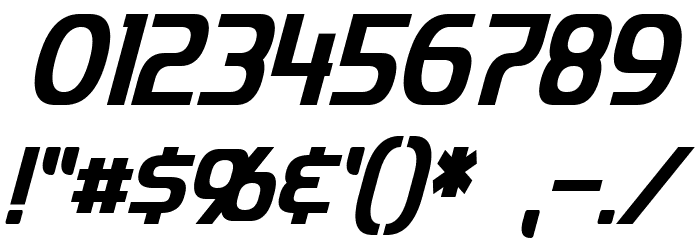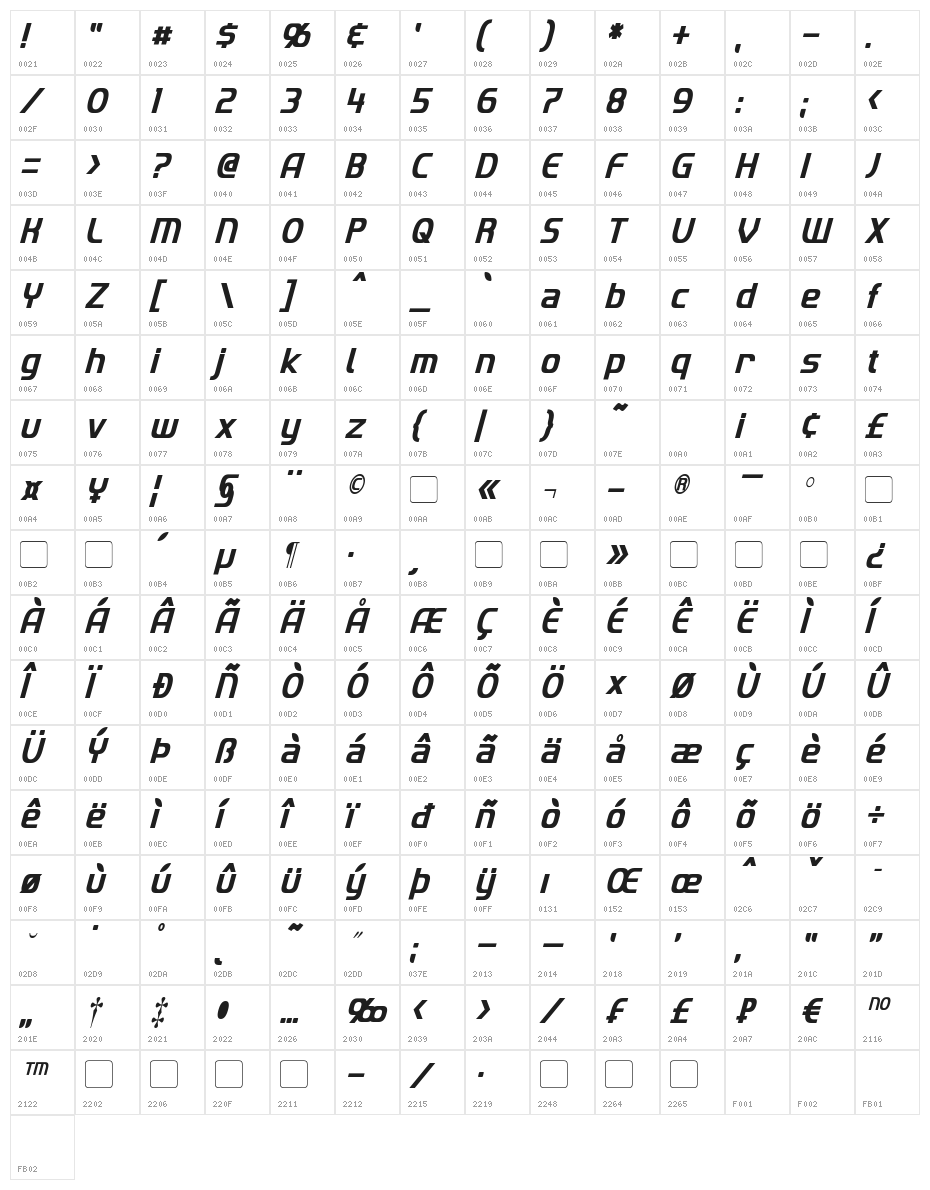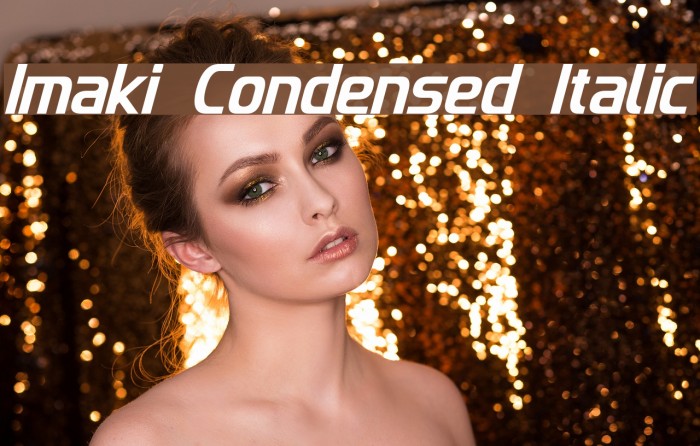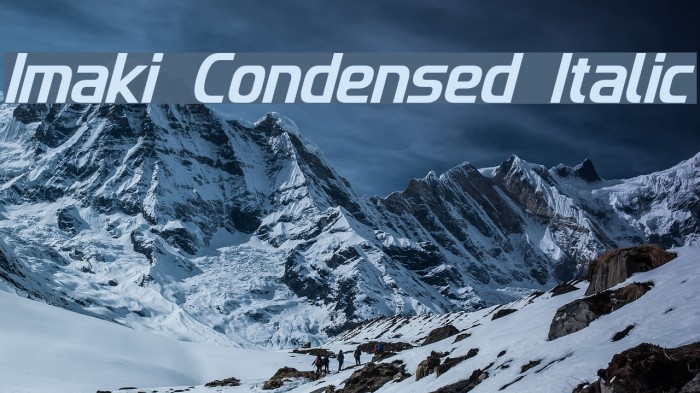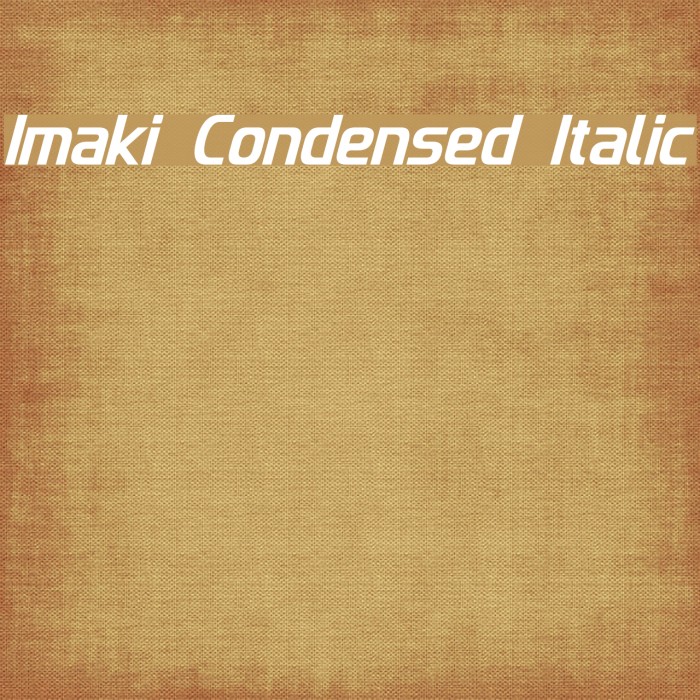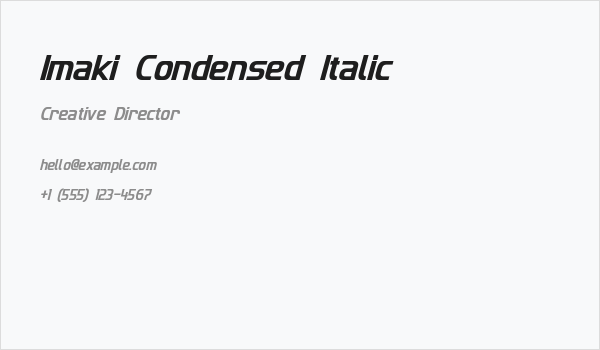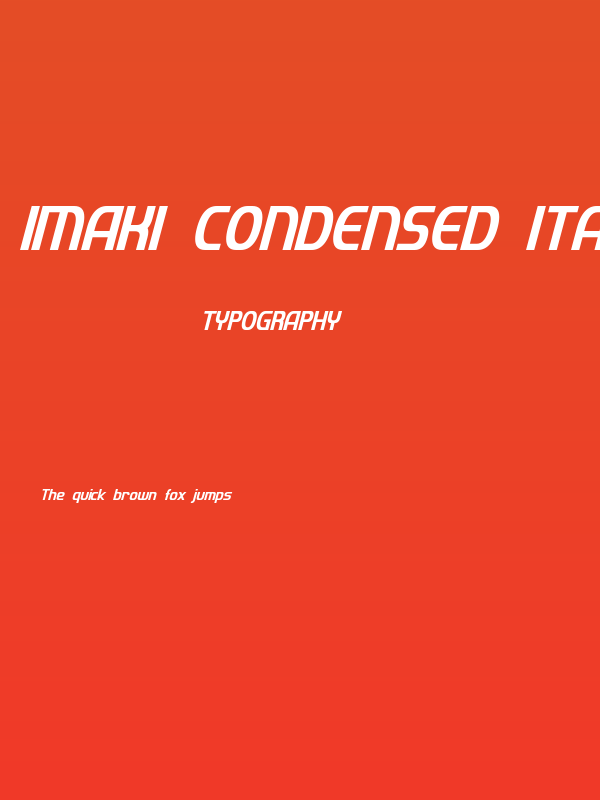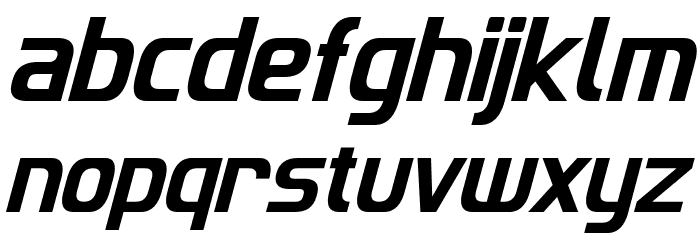
Imaki Condensed Italic Font
Imaki Condensed Italic Description
This font features a sleek, modern design with a condensed structure and italicized form. The characters are slightly slanted, giving a dynamic and forward-moving appearance. The strokes are consistent in weight, providing a uniform look across all characters. The uppercase letters are bold and commanding, while the lowercase letters maintain a smooth flow. The numerals are clear and easy to read, complementing the overall style. Special characters are well-integrated, maintaining the font's cohesive aesthetic. This font is ideal for projects that require a contemporary and energetic feel.